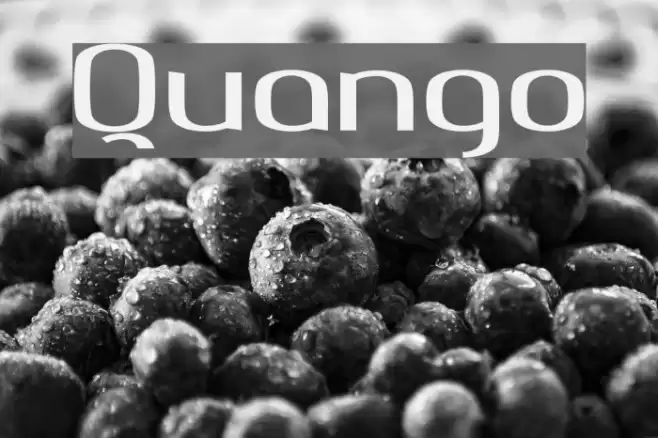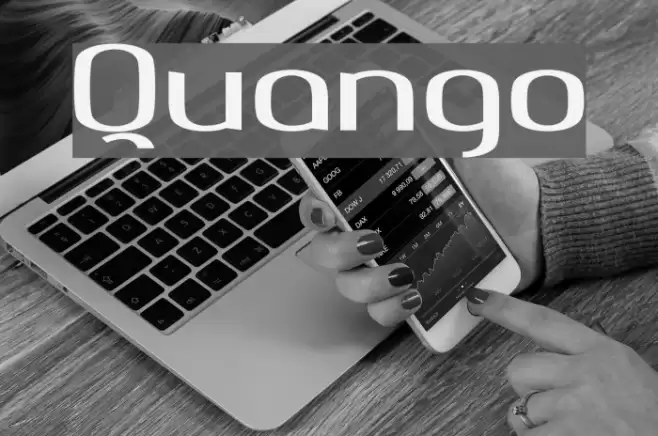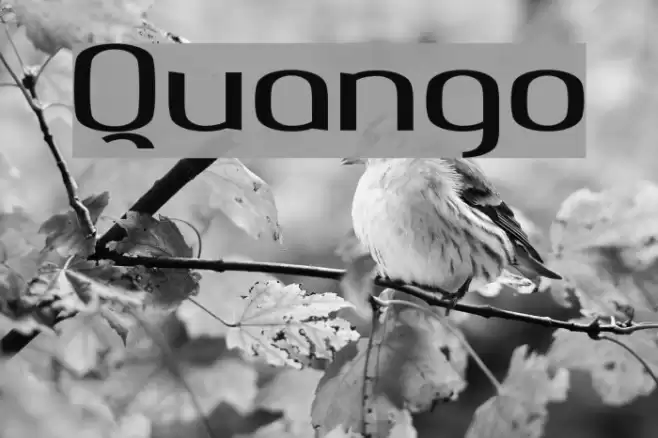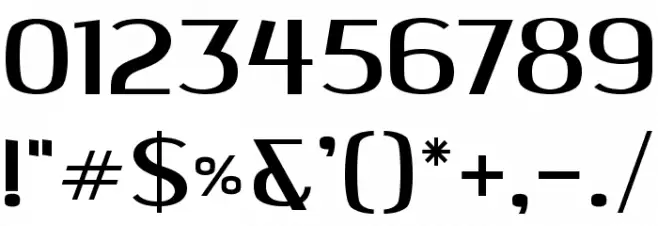
Quango Font
Quango Description
This font features a modern and sleek design with a geometric influence, characterized by clean lines and a balanced structure. The uppercase letters are bold and slightly condensed, giving a strong presence, while the lowercase letters maintain a harmonious flow with rounded edges. The numerals are consistent with the overall style, offering clarity and readability. Special characters are distinct and well-integrated, enhancing the font's versatility. The font's design is suitable for contemporary applications, providing a professional yet approachable aesthetic.
A modern, geometric font with clean lines and a balanced structure from Uncategorized fonts.
- Proposed Projects: Ideal for branding, advertising, digital media, and editorial design projects.
- Use Case: Headlines, Logos, Digital media